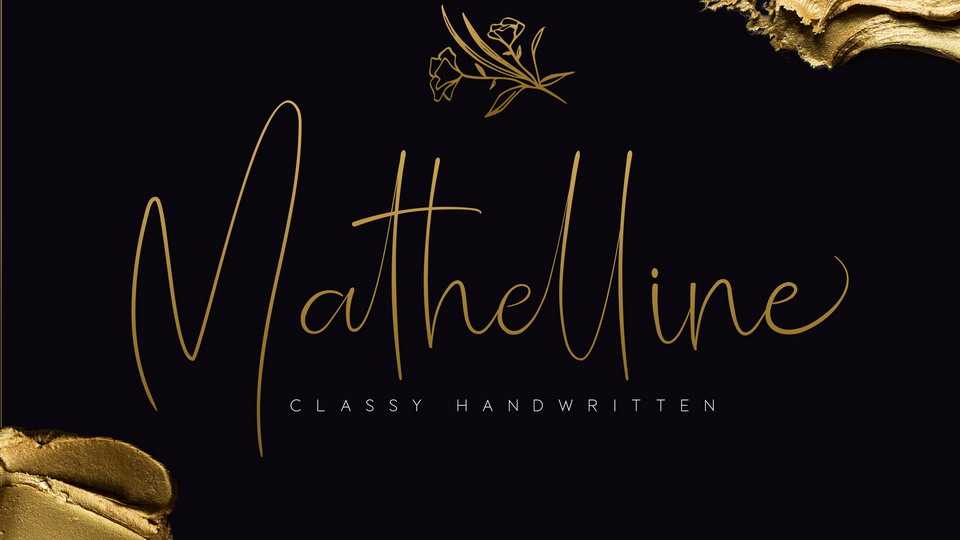
Download Mathelline font, a classy script, inspired by luxury and branded stuffs make this font looks classy and awesome in many way to your latest project.
Designer: Almarkha Type